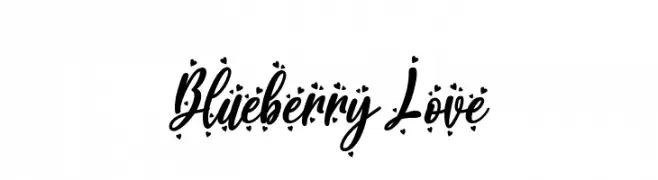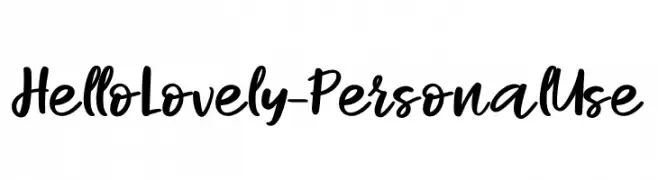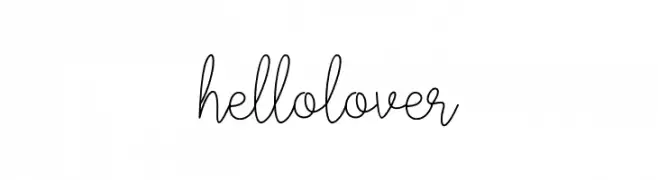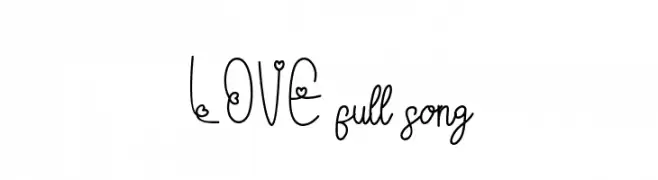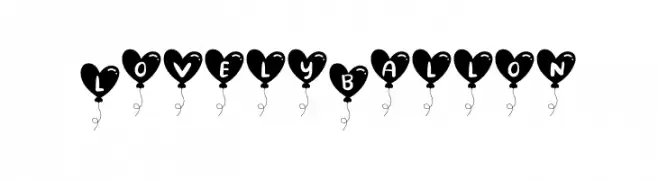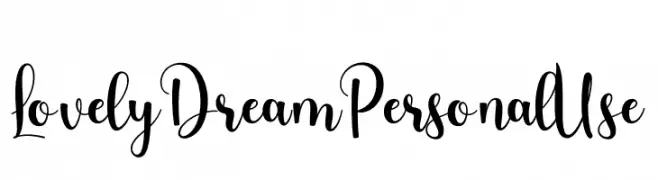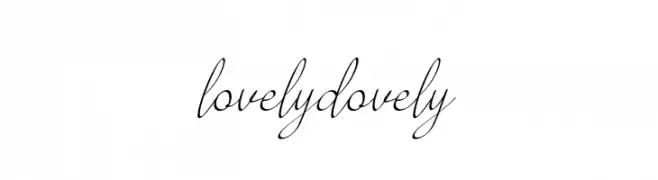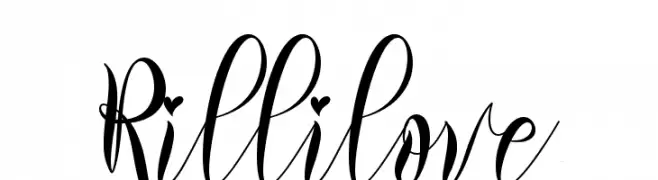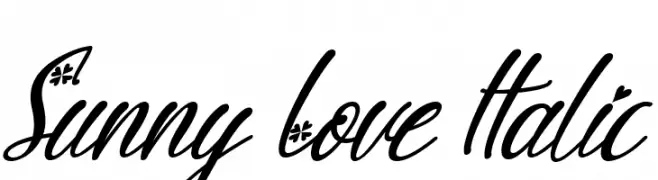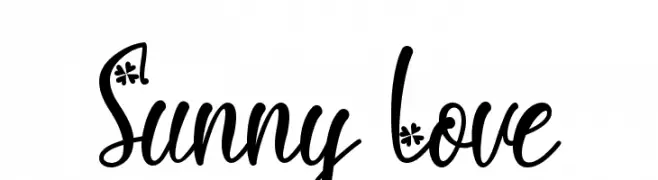
A playful, decorative handwritten script with floral motifs.
A whimsical script font with floral accents and flowing cursive style.
A flowing, cursive font with elegant, sweeping strokes and artistic flair.
A whimsical, cursive font with elegant loops and a romantic feel.
A playful script font with heart accents, perfect for romantic and creative designs.
A playful font with characters inside heart-shaped balloons, ideal for festive and romantic themes.
A playful, handwritten font with bold, smooth strokes and a casual, cursive style.
A whimsical font with heart motifs integrated into each character, offering a romantic and playful style.
A playful and elegant handwritten font with flowing cursive letterforms.
An elegant script font with flowing, cursive strokes and a sophisticated appearance.